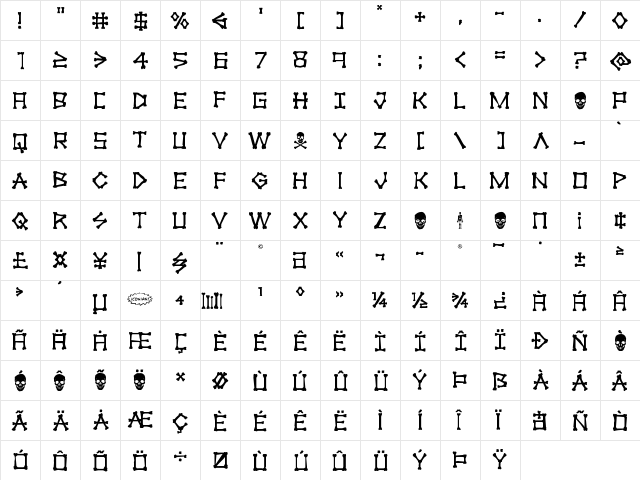
xBONES Rough Regular
Design Context for xBONES Rough Typeface
xBONES Rough embraces imperfection — its rough, textured character adds raw authenticity to designs that want to feel lived-in and unconventional.
Suited to punk-influenced zines, underground music branding, streetwear, and raw, anti-corporate design.
Pro Tip: Pair xBONES Rough with intentionally raw or lo-fi design elements. Fighting against it with overly polished surroundings will undermine its personality.